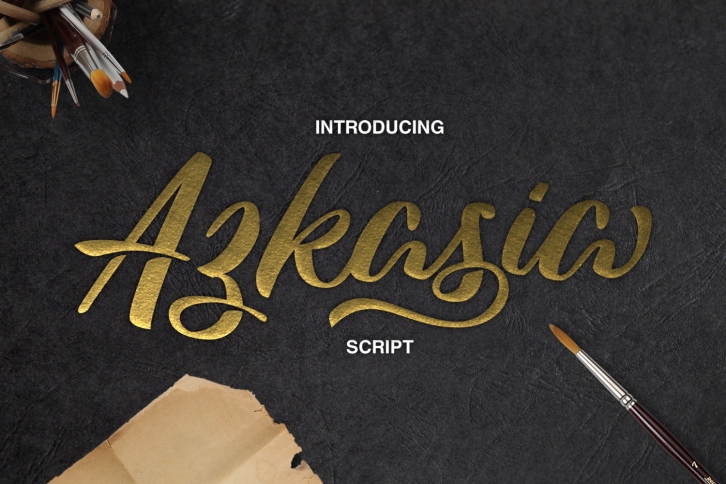
Azkasia Script is a trendy and unique font with an authentic style. It was designed by semut hitam and it's a great choice for creative people who need such a font. It was released on April 9, 2018 and the file size is 2.31 MB. Azkasia Script will add an organic vibe to any design idea!